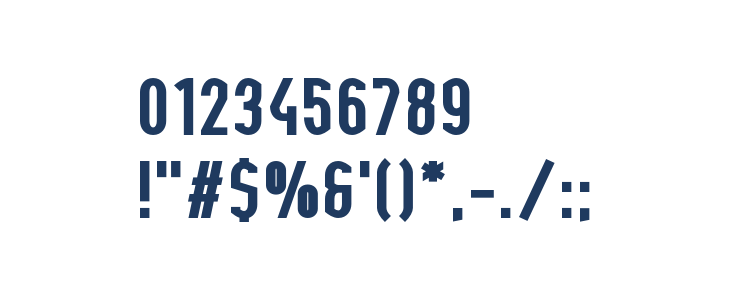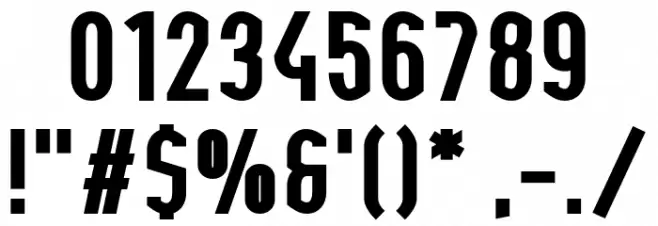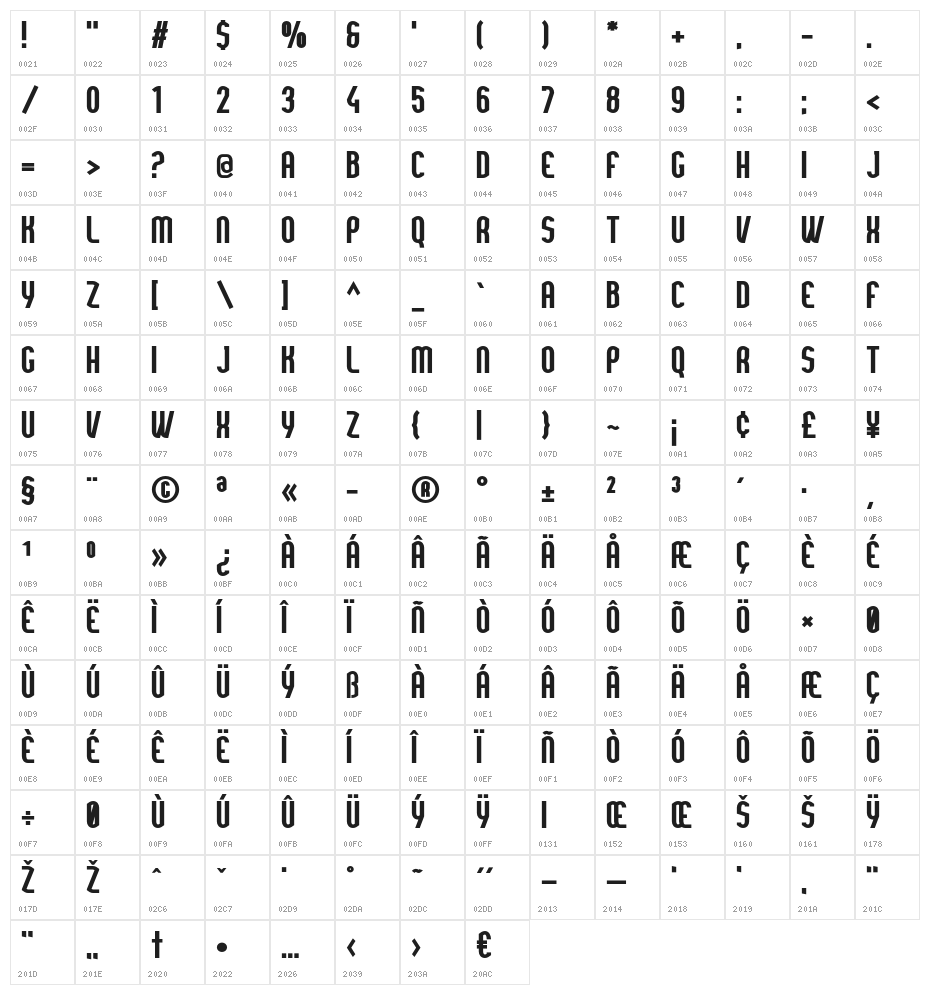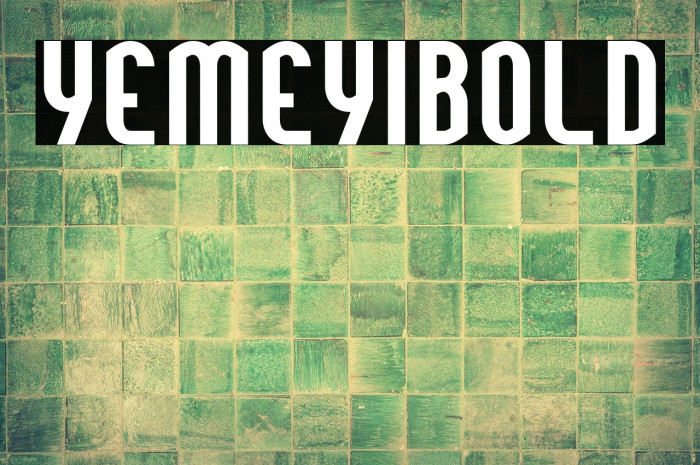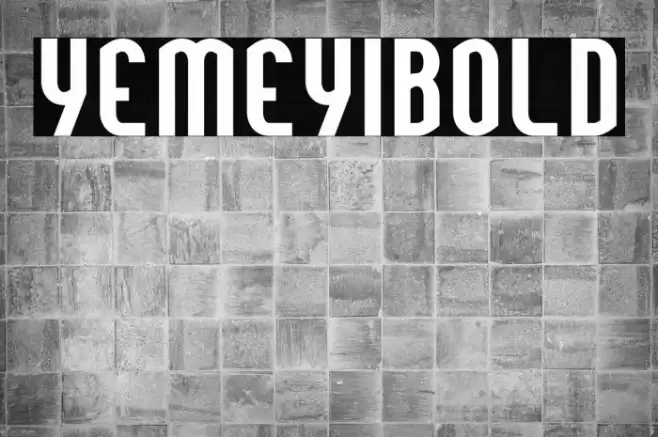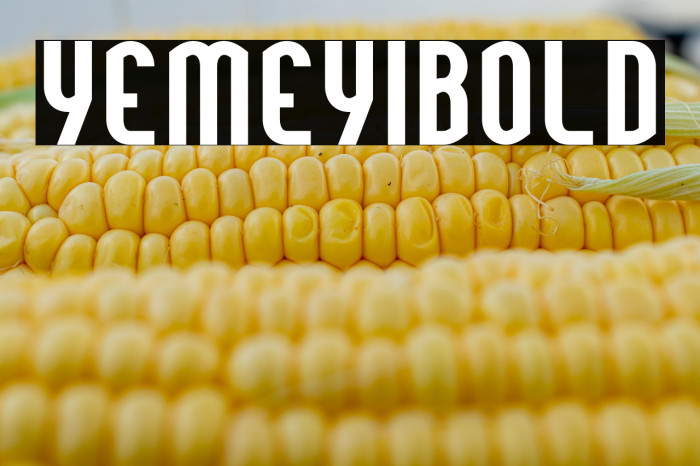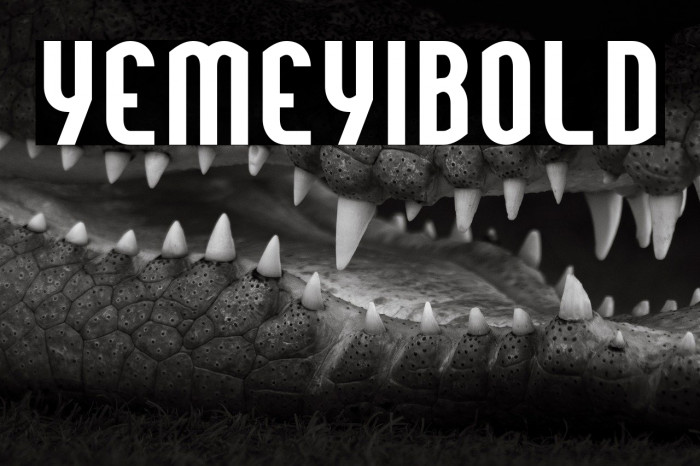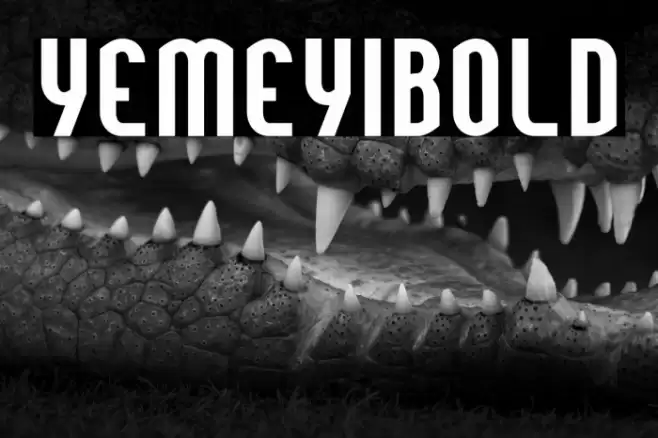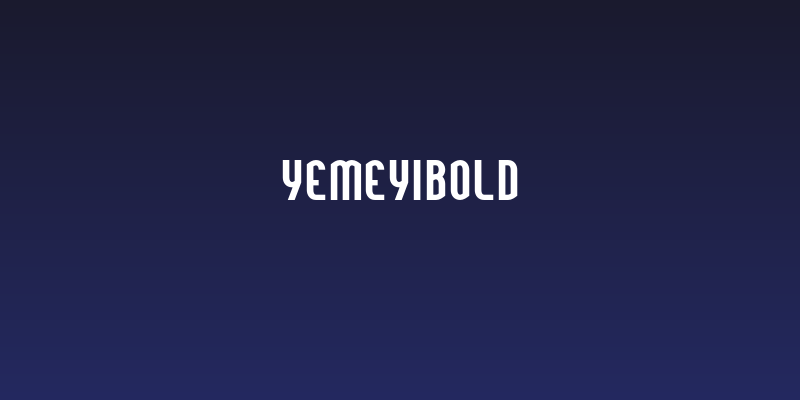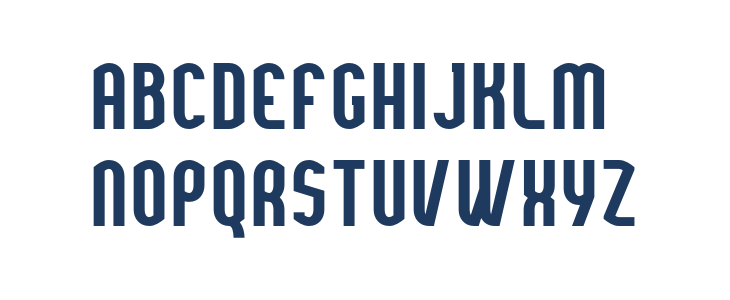
YemeyiBold Font
YemeyiBold Description
This font features a bold and striking design with a modern, geometric aesthetic. The characters are tall and narrow, giving a condensed appearance that maximizes vertical space. Each letter is crafted with clean, straight lines and sharp angles, creating a sense of precision and strength. The uniform stroke width across all characters contributes to a cohesive and balanced look. The font includes both uppercase and lowercase letters, numerals, and a variety of special characters, making it versatile for different design needs. Its boldness ensures high visibility and impact, making it suitable for attention-grabbing headlines and titles.
| Proposed Projects | Ideal for branding, posters, headlines, and any design requiring a strong visual impact. |